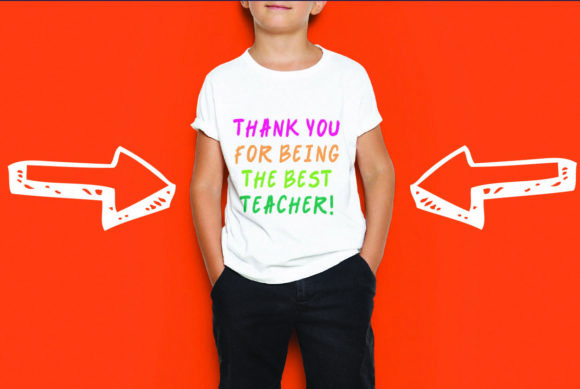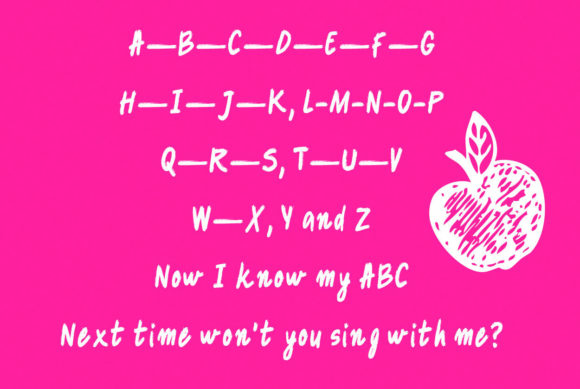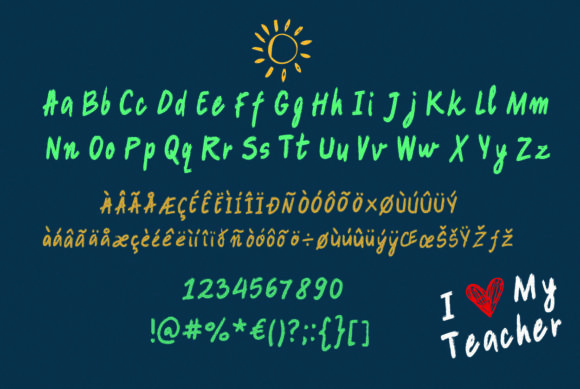
Introduction to Jacoby Font
Have you ever been brainstorming ideas for a creative project, only to be stuck on the perfect font to bring your concept to life? The struggle is real, but with the right design resource, anything is possible. Today, we’re excited to introduce you to the Jacoby Font, a cool and playful display font that’s about to become your new go-to choice for headings, children’s designs, and so much more!
Whether you’re a seasoned designer or just starting out, the Jacoby Font is a high-quality addition to your design arsenal. Its free download and transparent background make it easy to integrate into your creative project, giving you the freedom to focus on what matters most – your unique vision and style.
Key Features of Jacoby Font
- High-quality design resource suitable for creative projects, available for free download.
- Unique, modern font style with a transparent background, ideal for graphic designers and artists.
- Comes in 1 font style with a range of sizes and resolutions, suitable for use in various creative contexts.
- Easy to customize and use in creative projects, including digital art, print designs, and web applications.
Honest Review: Jacoby Font
I recently had the chance to work with the Jacoby Font, and I must say it’s a high quality design resource that’s perfect for creative projects.
- ✨ Elegant and sophisticated design aesthetic that’s perfect for professional branding.
- ✨ Transparent background allows for seamless integration into various design applications.
One of the standout features of the Jacoby Font is its versatility. It’s suitable for a wide range of creative projects, from logos and business cards to digital products and print materials.
- ⚠️ Limited character set may require additional font pairing for extended text-based projects.
- ⚠️ Not ideal for bold, attention-grabbing headlines, as its elegance may get lost in large font sizes.
Overall, the Jacoby Font is a solid choice for designers seeking a high-quality, professional font for their creative projects. With its free download and transparent background, it’s an excellent design resource to have in your toolkit.
Tips for Getting the Most Out of Jacoby Font
Experiment with different font sizes, colors, and combinations to create a unique design. Use the font’s transparent background to layer it with other design elements. Additionally, pair the Jacoby Font with other high-quality design resources to create a cohesive and visually appealing design.
Common Use Cases for Jacoby Font
The Jacoby Font is perfect for a variety of creative projects, including graphic design, typography, and visual art. Use it to create logos, graphics, posters, or social media graphics. With its unique design and high-quality resolution, this font is sure to elevate your design projects.
Alternatives to Jacoby Font
The Great Vibes Font is a high-quality, elegant script font that is ideal for creative projects such as wedding invitations, logos, and other design elements. It features a transparent background and is available for free download. Great Vibes is similar to Jacoby Font in its elegant and sophisticated feel, but it has a more refined and polished look.
The Alex Brush Font is a beautiful, handwritten script font that is perfect for design projects that require a touch of elegance and sophistication. It has a high-quality design and is available for free download with a transparent background. Alex Brush is similar to Jacoby Font in its creative and artistic feel, but it has a more subtle and understated look.